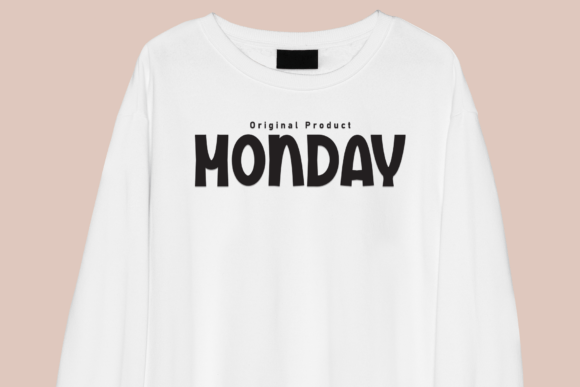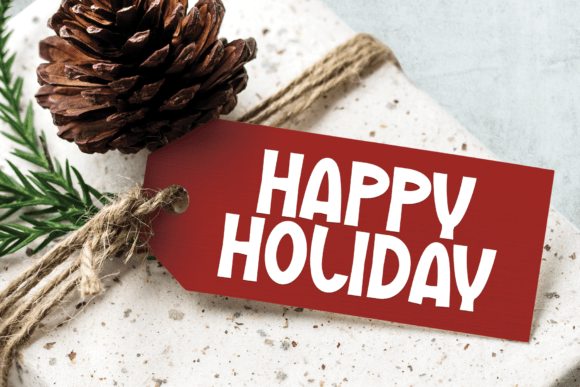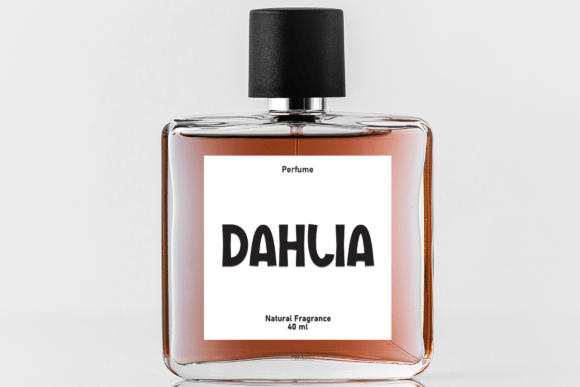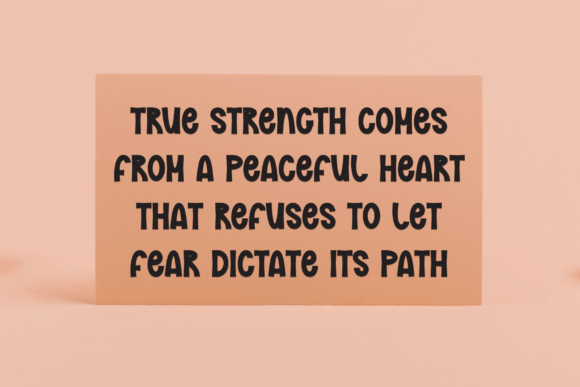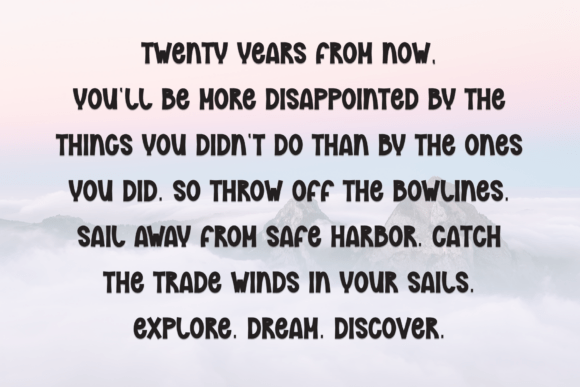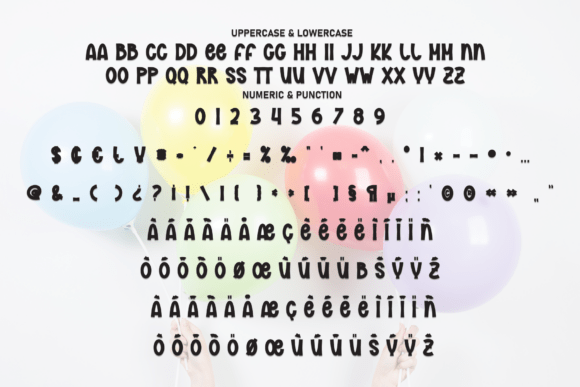
The Perfect Pop of Personality
Remember that magical moment when you finally found the perfect font for a special project? The one that made your design come alive with a dash of personality and charm? For designers like you, the quest for that elusive ‘something special’ is a constant pursuit. And today, we’re thrilled to introduce a font that’s sure to make your creative heart skip a beat – the Balloon Font.
This delightful display font is more than just a pretty face; it’s a key to unlocking the warmth and friendliness that makes your designs truly memorable. Whether you’re crafting whimsical wedding invitations or heartfelt stationery, the Balloon Font is the perfect addition to bring a touch of happiness to your creations.
With its captivating aesthetics and sweetly-adorned styles, this endearing font is guaranteed to breathe life into your designs and leave a lasting impression on your audience. So why settle for ordinary when you can pop with personality? Let the Balloon Font be your secret ingredient to making your designs truly unforgettable.
Key Features of Balloon Font
- Unique Characteristics: The font’s distinctive rounded shapes and soft curves create a playful, whimsical feel, making it ideal for children’s books, magazines, and other creative projects.
- Kerning and Ligatures: The font includes advanced kerning and ligature features to ensure smooth text flow and professional-looking typography.
Designer Review: Balloon Font
Overall, I’d say the Balloon Font is a fun and quirky addition to any design project. Here are some of the things that work well:
- ✨ Unique aesthetic: The Balloon Font has a playful, hand-drawn feel that’s perfect for projects that need a bit of whimsy.
- ✨ Easy to read: Despite its playful look, the font is surprisingly easy to read, even at smaller sizes.
- ✨ Customization options: The font comes with a range of customization options, including different colors and outline styles.
However, there are a few limitations to be aware of:
- ⚠️ Limited font sizes: The font works best at larger sizes, but it can become pixelated and difficult to read at smaller sizes.
- ⚠️ Limited language support: The font may not support all languages, which could be a problem for international projects.
- ⚠️ Limited customization options for certain elements: While the font itself has a range of customization options, some elements (like the balloon shape) are harder to customize.
Overall, I’d say the Balloon Font is a great choice for projects that need a playful, whimsical feel. Just be aware of its limitations and use it judiciously.
The Balloon Font is perfect for:
- Creating playful and eye-catching headings and titles.
- Adding a fun and whimsical touch to graphics and illustrations.
- Highlighting important information in presentations and documents.
Alternatives to Balloon Font for Designers
Circular Font
Circular Font is a sans-serif font that features rounded edges and circular shapes. It is ideal for use in children’s educational materials, party invitations, and other playful designs. Compared to Balloon Font, Circular Font is more versatile and can be used in a wider range of applications. While Balloon Font is more whimsical and cartoon-like, Circular Font is more modern and sleek.
Comic Sans
Comic Sans is a classic font that is reminiscent of comic book lettering. It is often used in informal designs, such as social media posts, blogs, and newsletters. Compared to Balloon Font, Comic Sans is more casual and relaxed, but it can also be perceived as less professional. Balloon Font is more elegant and sophisticated, while Comic Sans is more playful and laid-back.